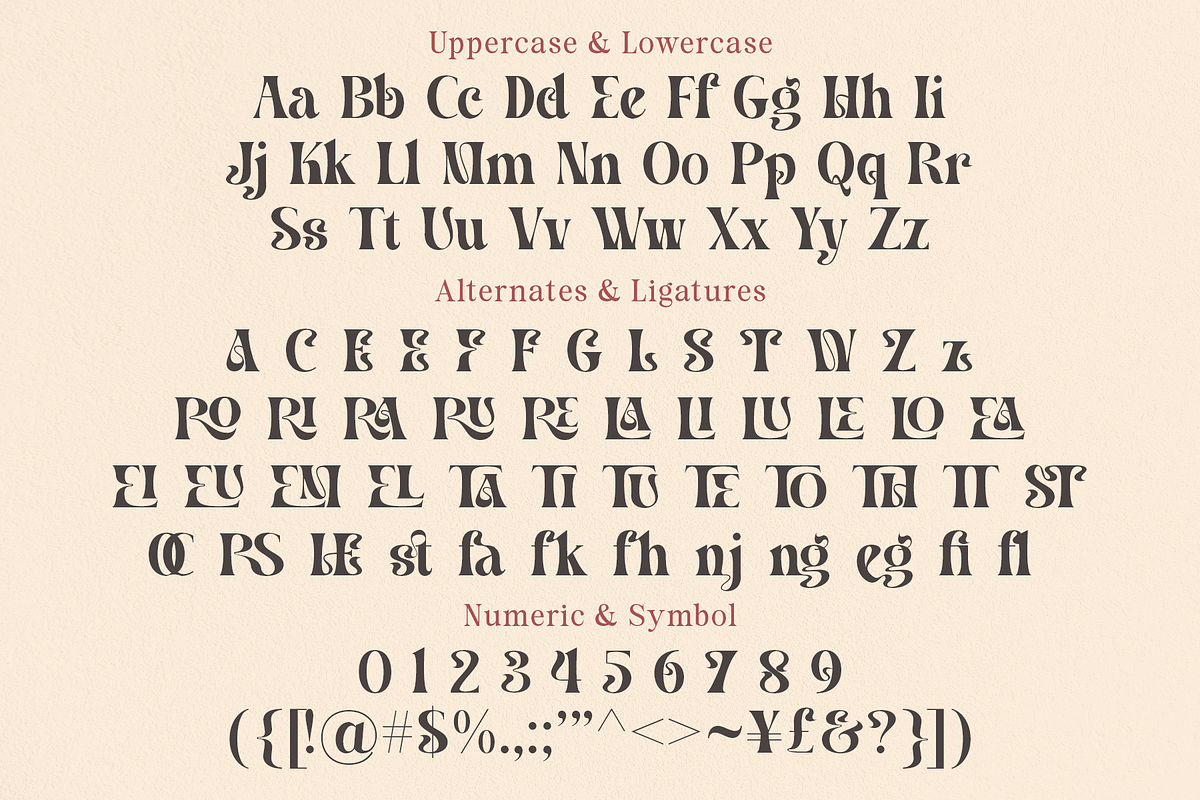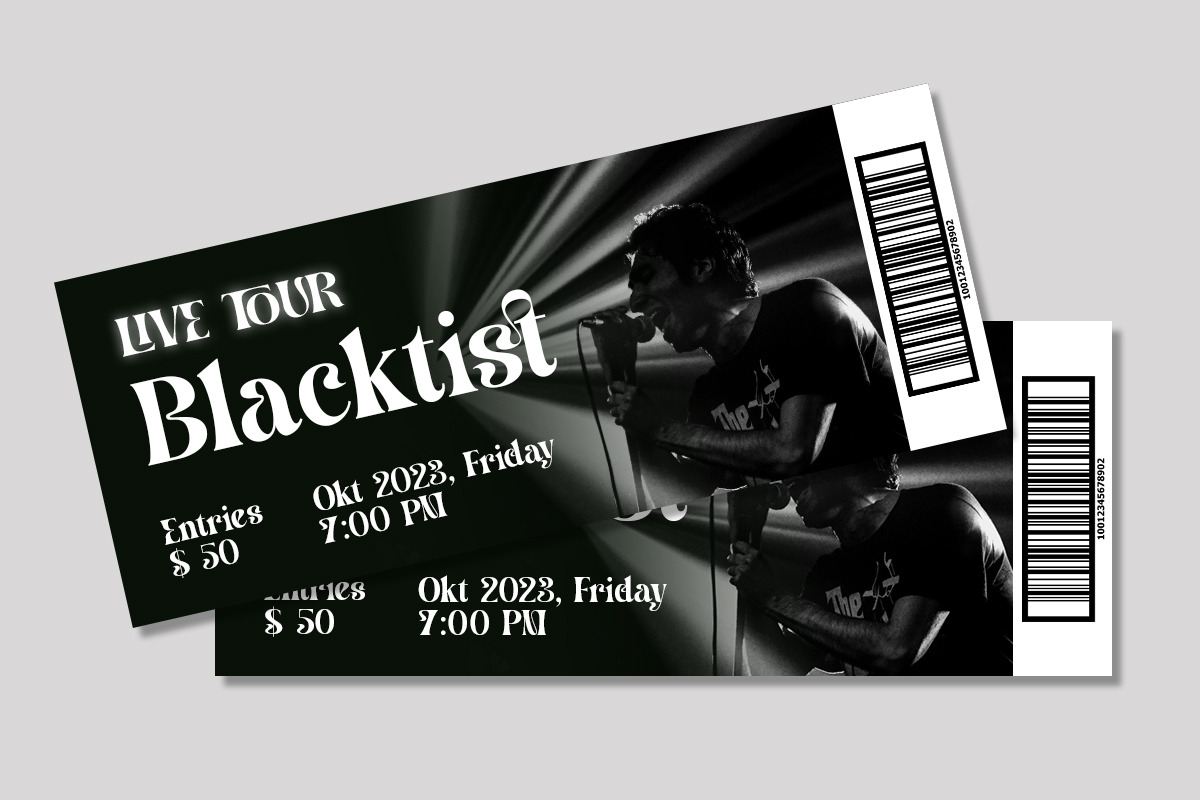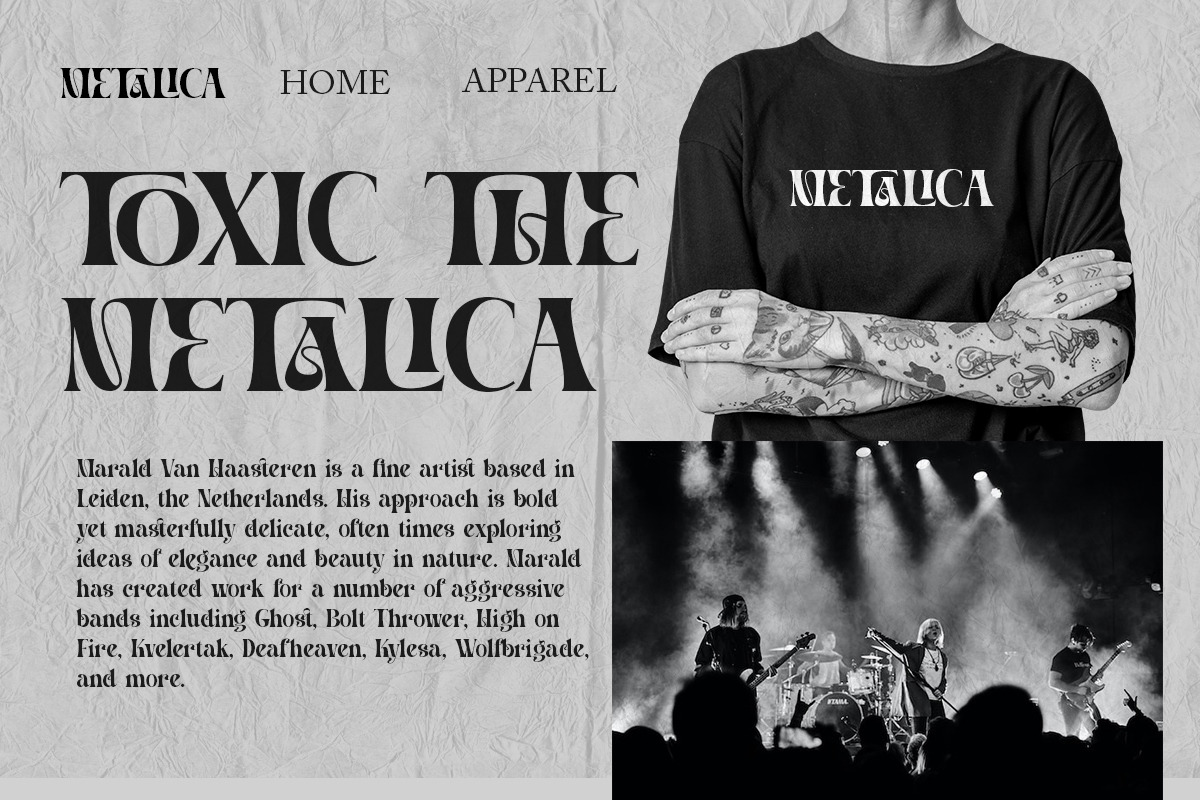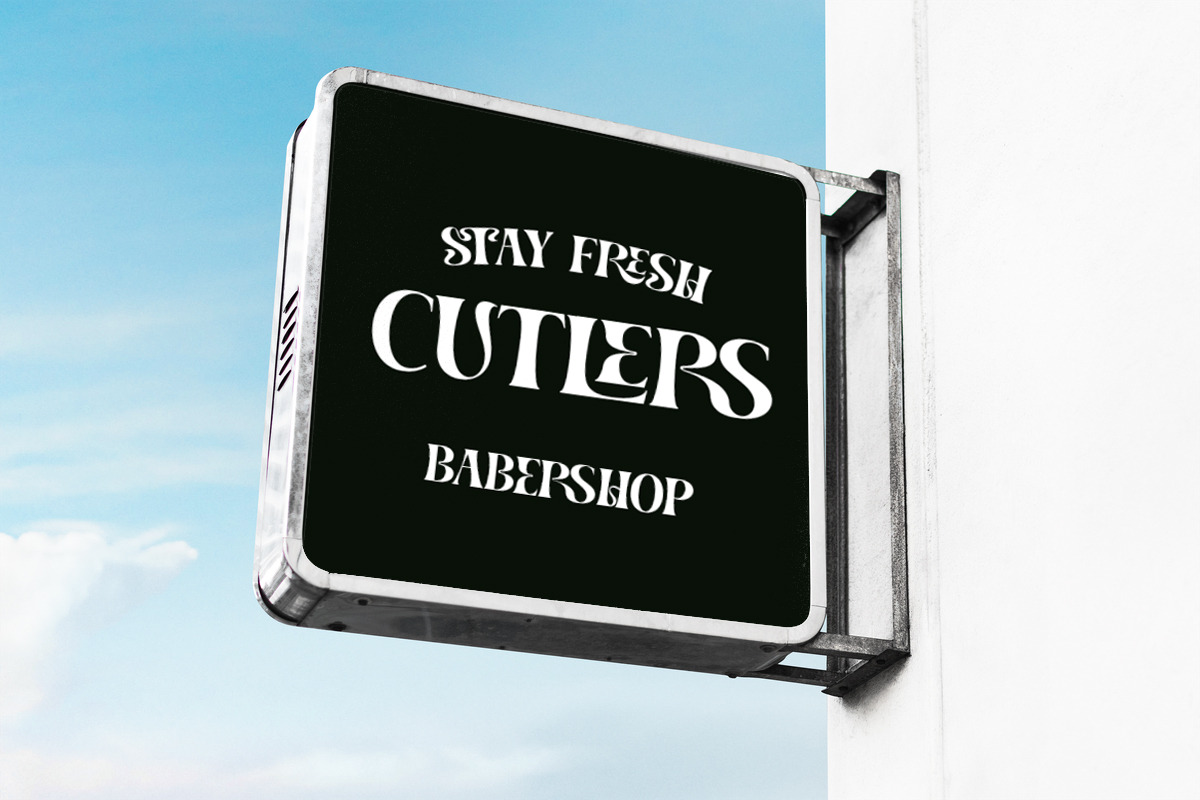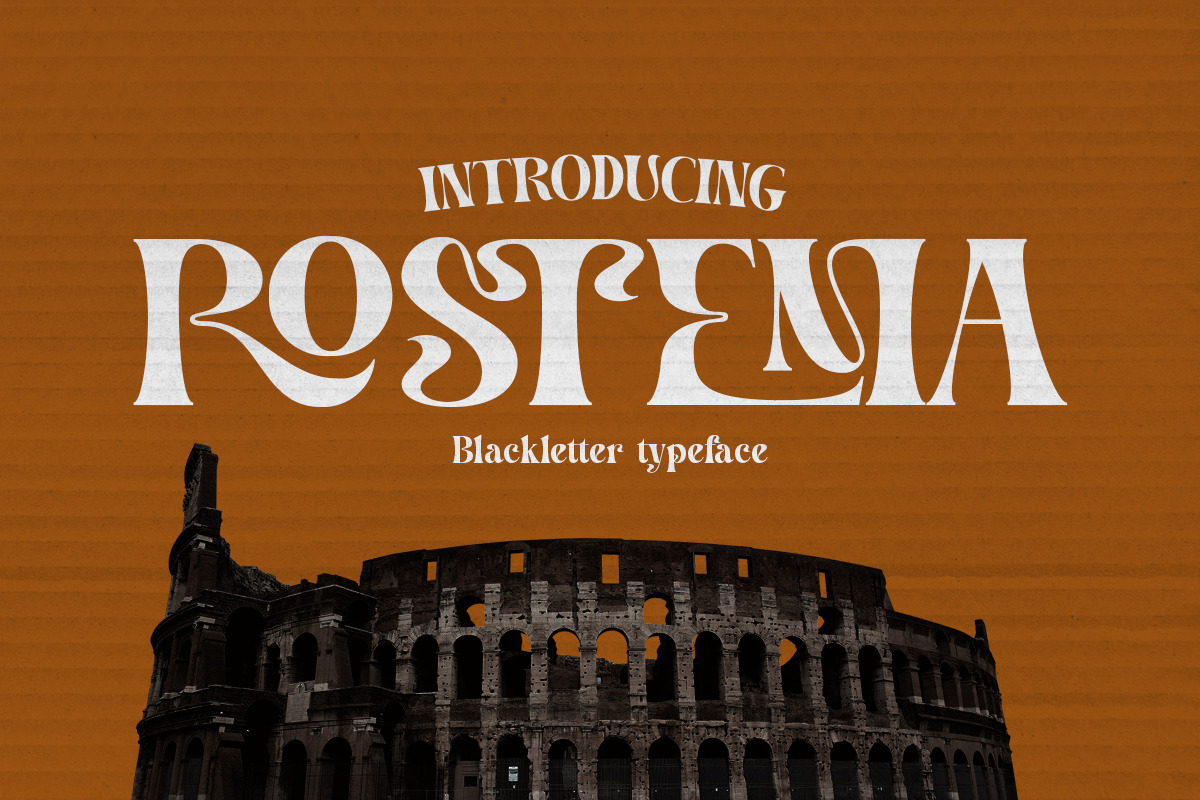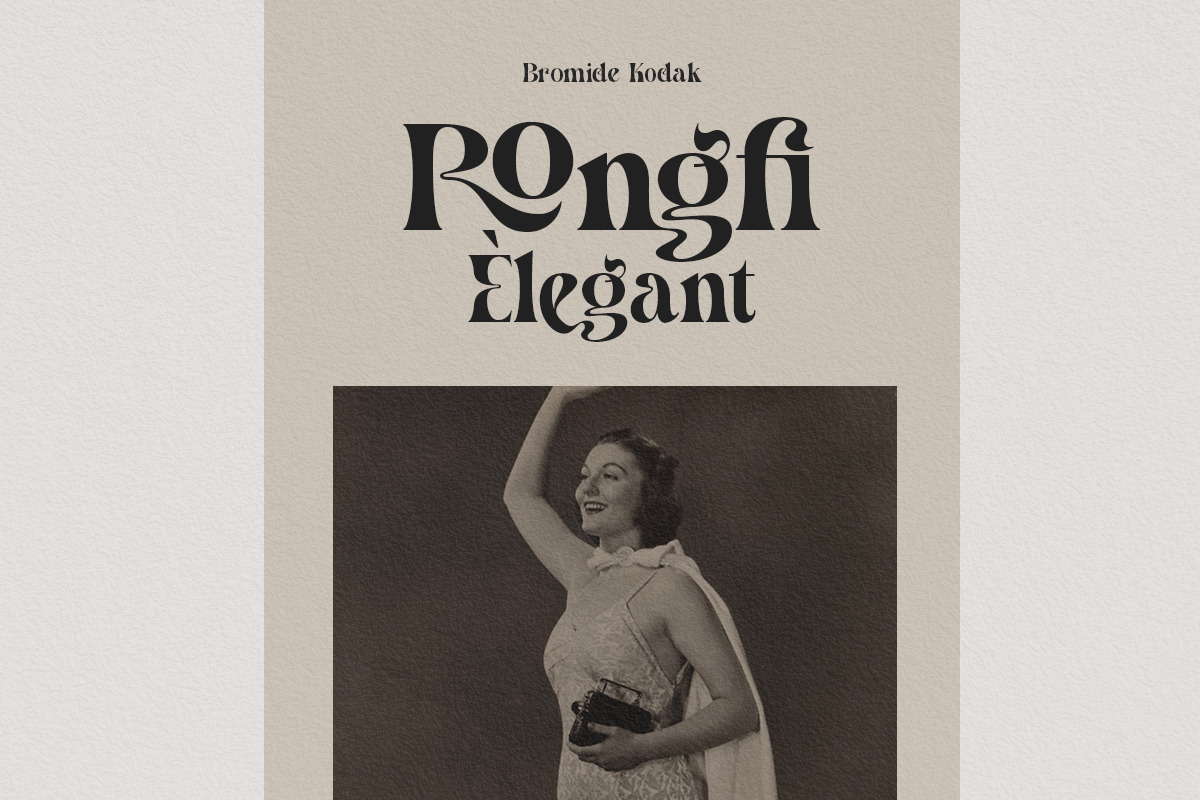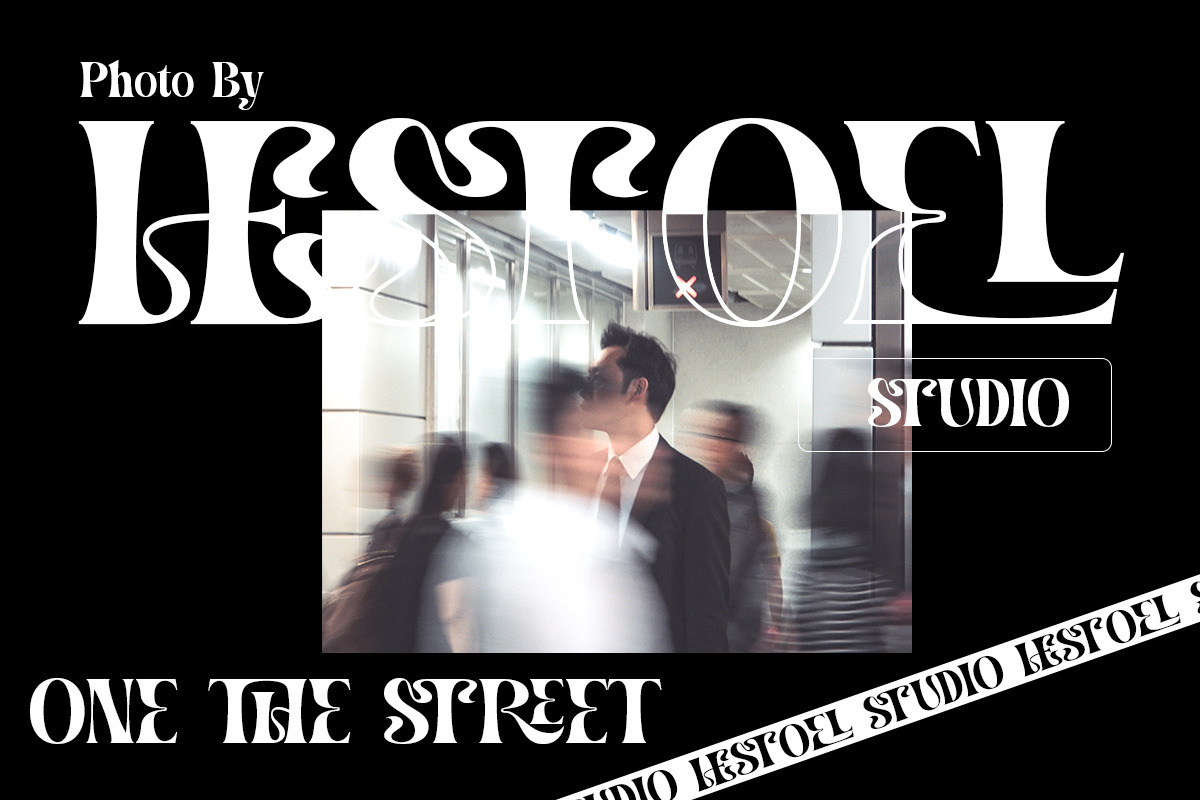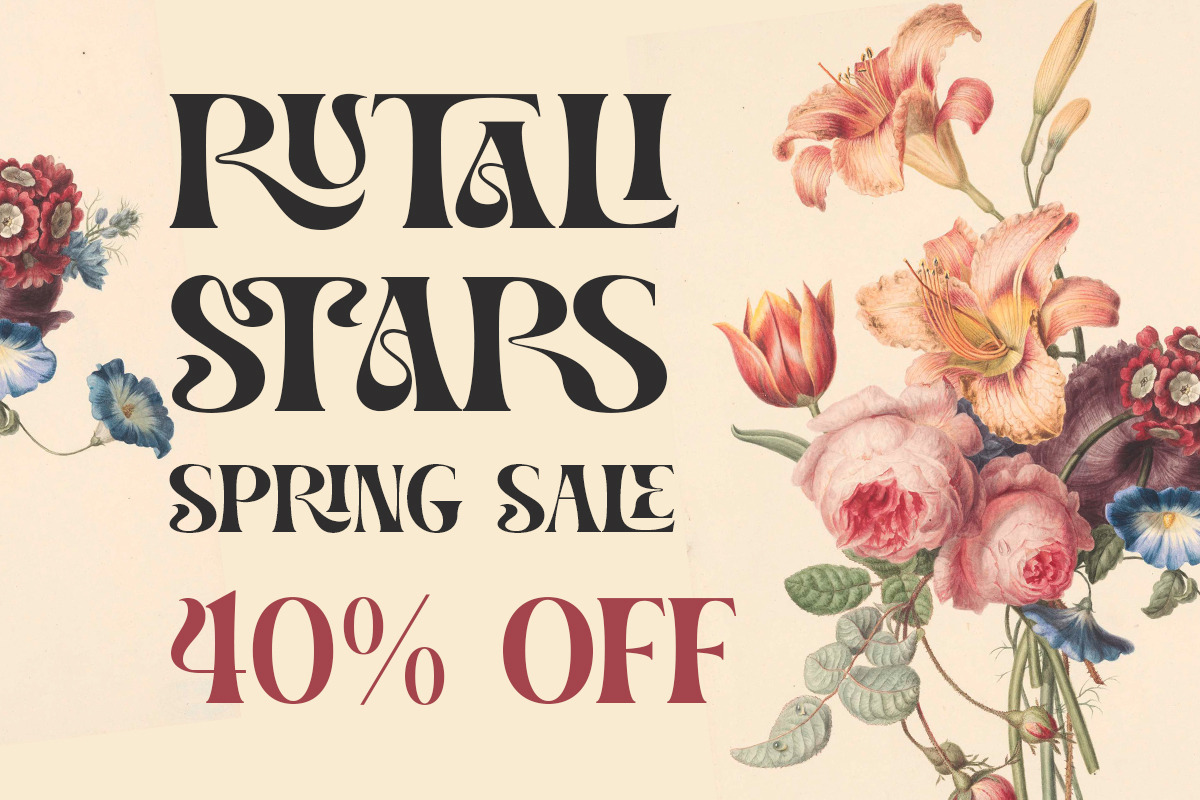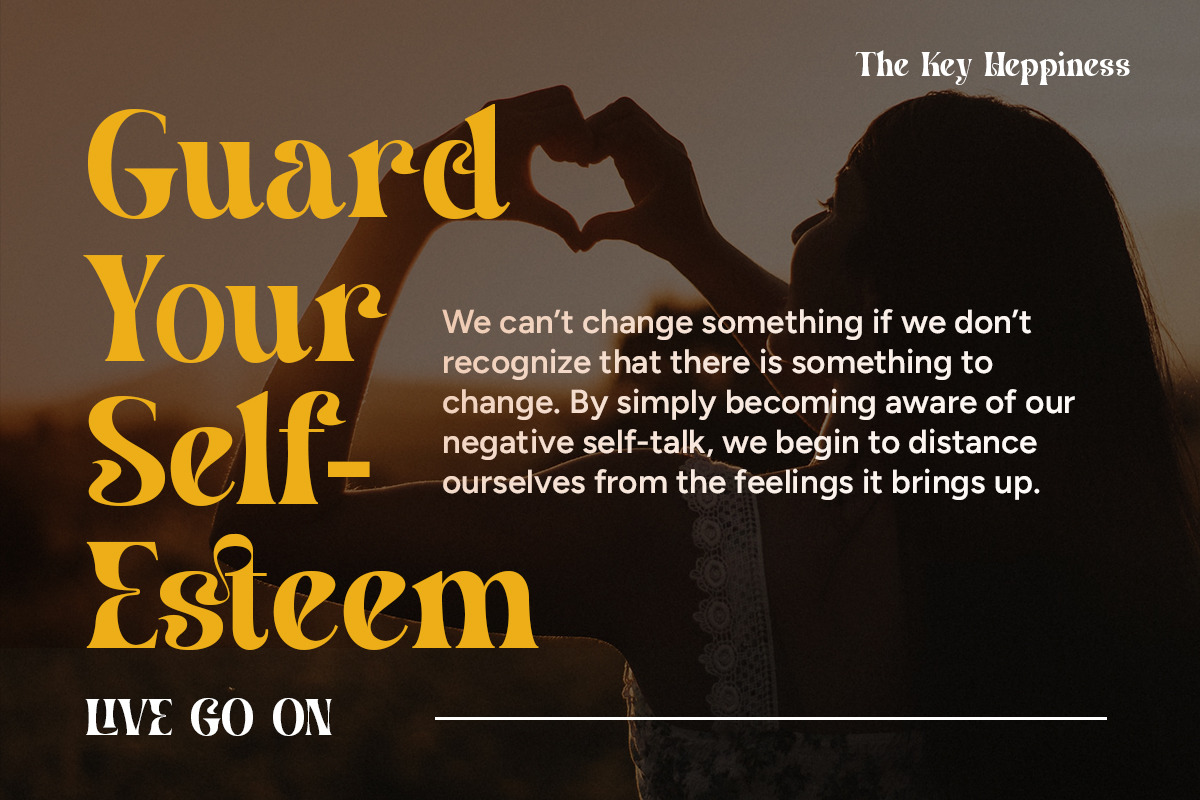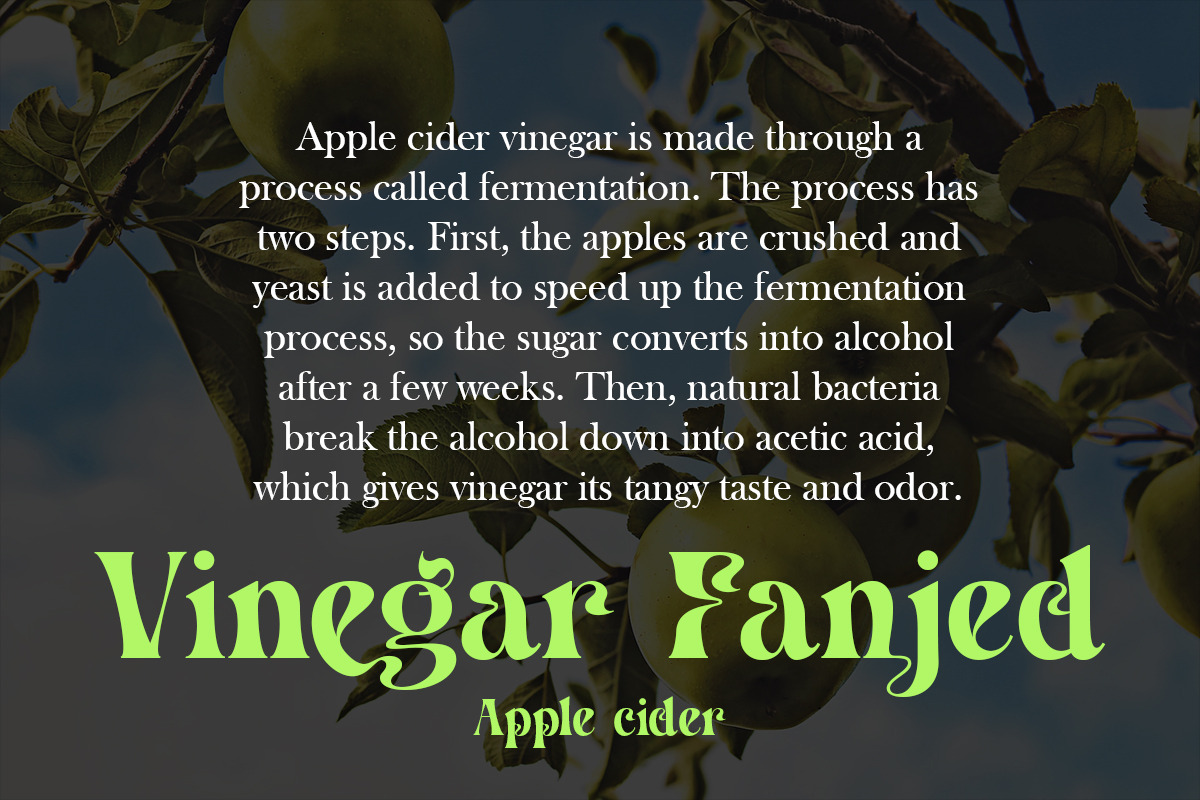
Rostema - Unique Display Typeface
Rostema - Display Serif
Introducing Rostema, a captivating blackletter serif display font that seamlessly bridges the gap between tradition and modern design. This typeface is a testament to the timeless beauty of blackletter fonts, infused with a contemporary twist that makes it perfect for a wide range of creative applications.
Whether you're designing posters, branding materials, invitations, or any other creative endeavor that demands a bold and distinctive typeface, Rostema is your go-to font. Its blackletter serif display style adds a touch of drama and sophistication to your designs, setting them apart and leaving a lasting impression.
- Letters, numbers, symbols, and punctuation